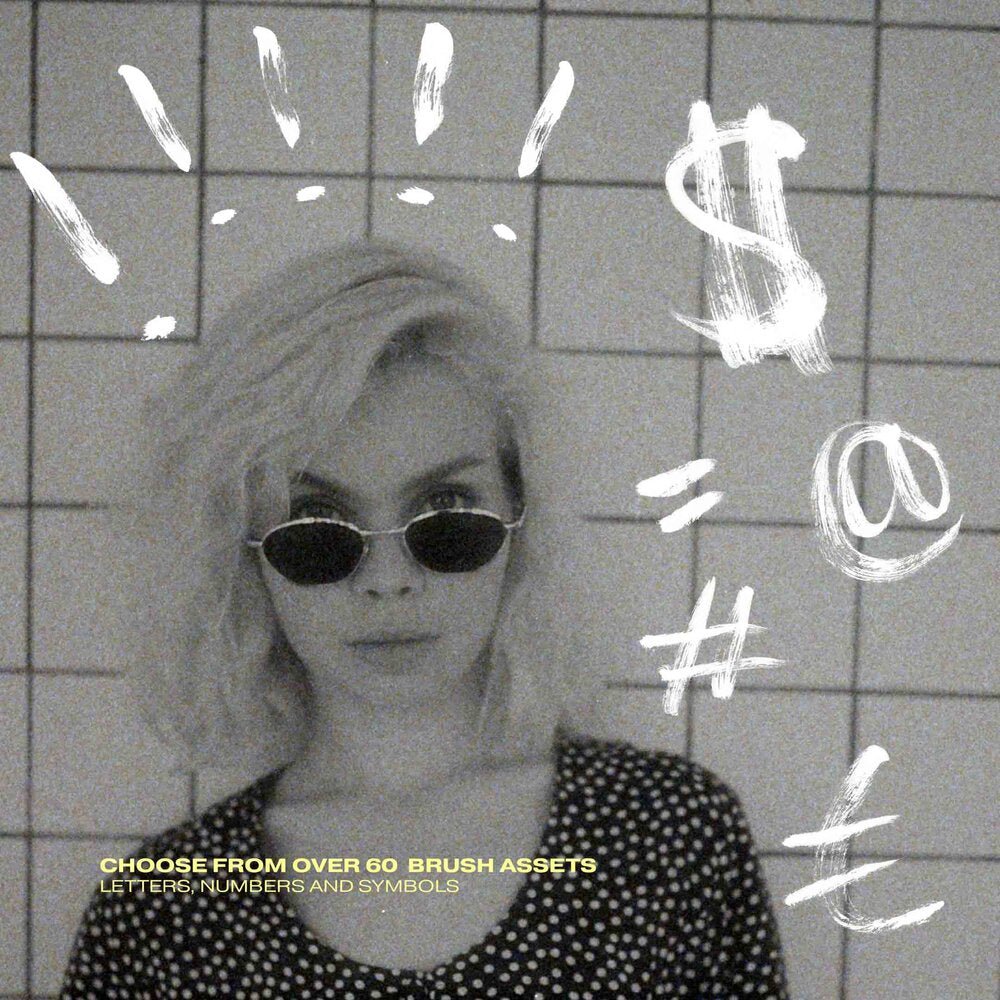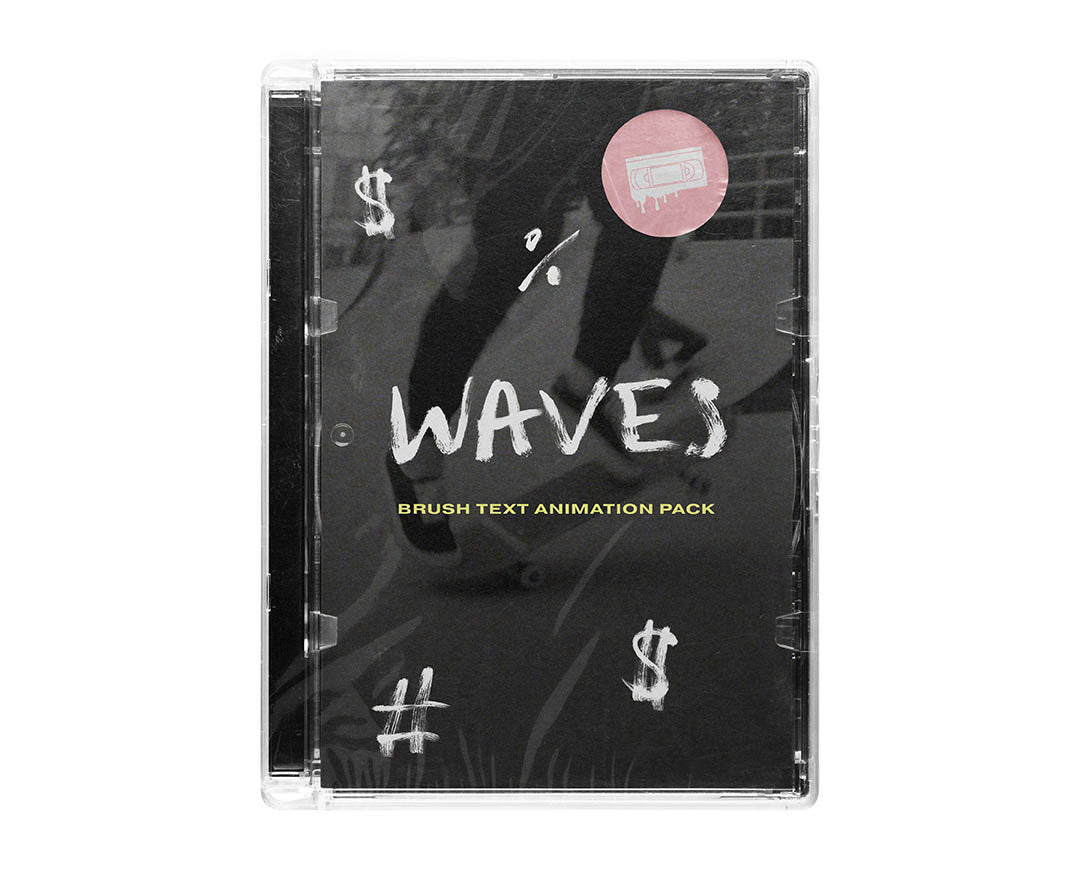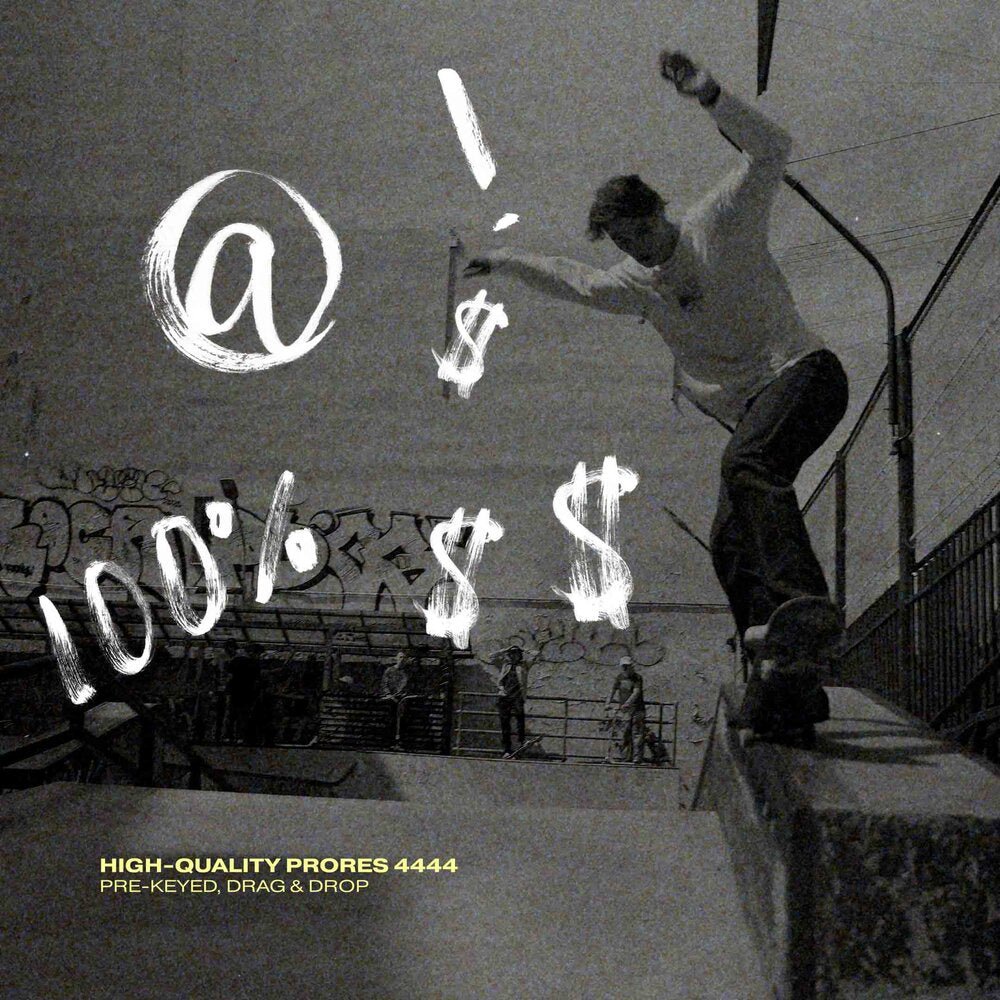
WAVES Brush Animated Font Pack – Hand-Scanned Brush Letter Animations for Video Editors
Before vector curves and motion templates, letters were painted by hand — brushes dragged across paper, leaving behind uneven edges, thick strokes, and tiny imperfections that made the text feel alive.
The WAVES Brush Animated Font Pack brings that authentic hand-painted energy into modern editing workflows.
Each letter in this collection was created from real brush lettering scans captured frame-by-frame, preserving every groove of ink and paper texture. Those scans were then converted into high-quality animated assets designed to drop directly into professional video timelines.
The result is a true analog brush animation system that keeps the raw character of paint while working seamlessly inside modern editing software.
Whether you're building titles for a music video, commercial, documentary, or street-inspired brand film, these animations add a gritty handcrafted feel that digital typography rarely captures.
Authentic Brush Lettering — Scanned Frame by Frame
Each animation began as real brush lettering on paper, scanned carefully to preserve the texture and natural ink flow.
Instead of recreating brush strokes digitally, this pack captures the organic imperfections of real paint, giving every letter the same tactile energy found in handmade signage, graffiti tags, and vintage title design.
The result feels grounded, imperfect, and alive — exactly how brush typography should look.
Built for Modern Editing Workflows
While the lettering is analog in origin, the pack is engineered for professional digital post-production.
Instantly Match Your Brand or Footage
Because the animations are delivered with transparency, it's easy to customize the look to match your visual style.
This allows the same lettering pack to work across a wide range of projects — from gritty street visuals to clean modern branding.
Designed for the Street Aesthetic
The visual inspiration behind WAVES comes directly from street art, handmade signage, and underground poster design.
The brush strokes carry a vintage 90s feel, perfect for projects that want to capture raw creative energy rather than polished corporate typography.
From music videos and skate films to fashion promos and experimental edits, these letters help build titles that feel handmade rather than manufactured.
Over 60 Animated Typography Assets
This pack includes a complete animated character set so editors can construct their own custom titles.
Each animation runs approximately 15 frames, creating quick, energetic brush reveals that work perfectly for dynamic edits.